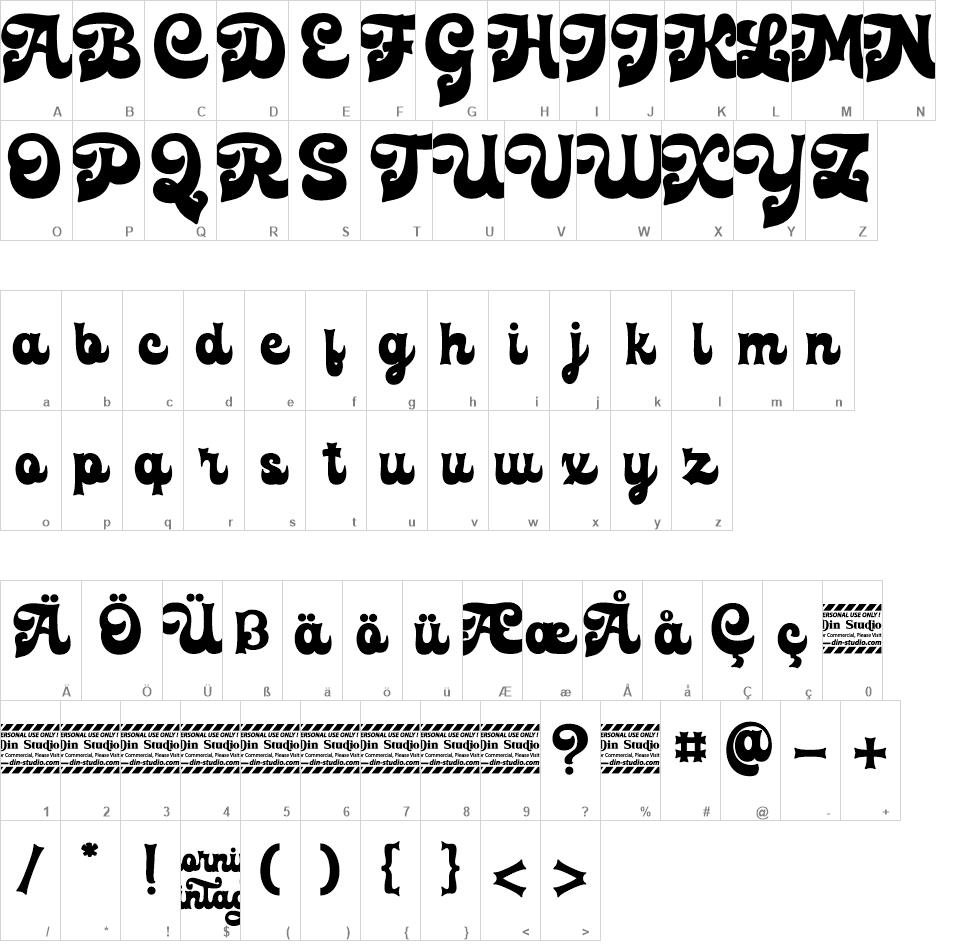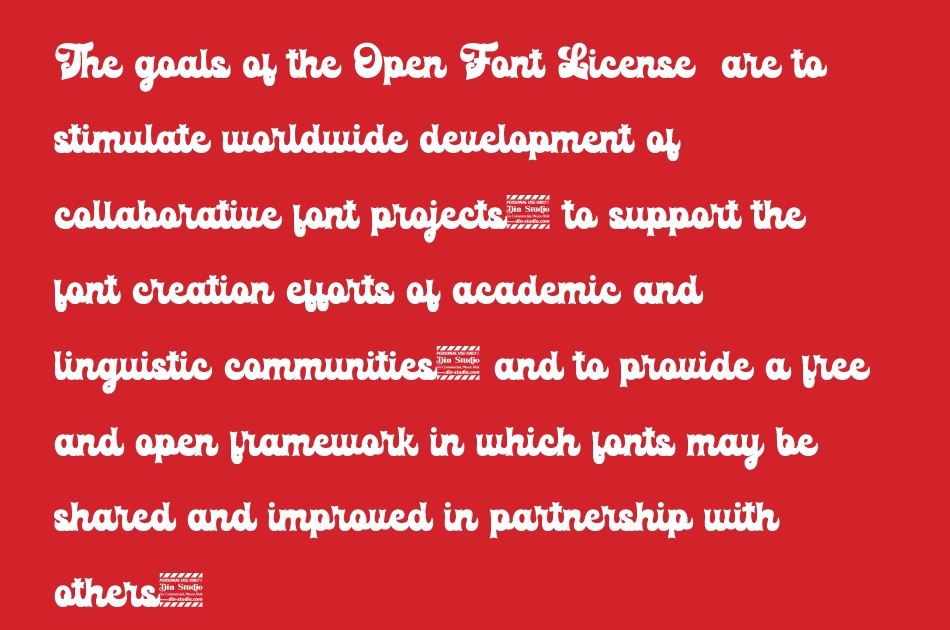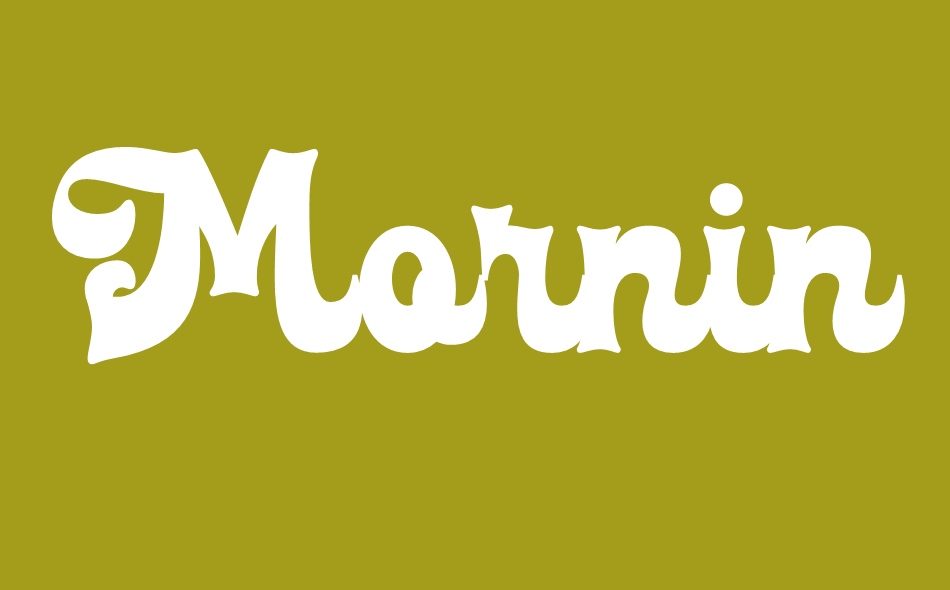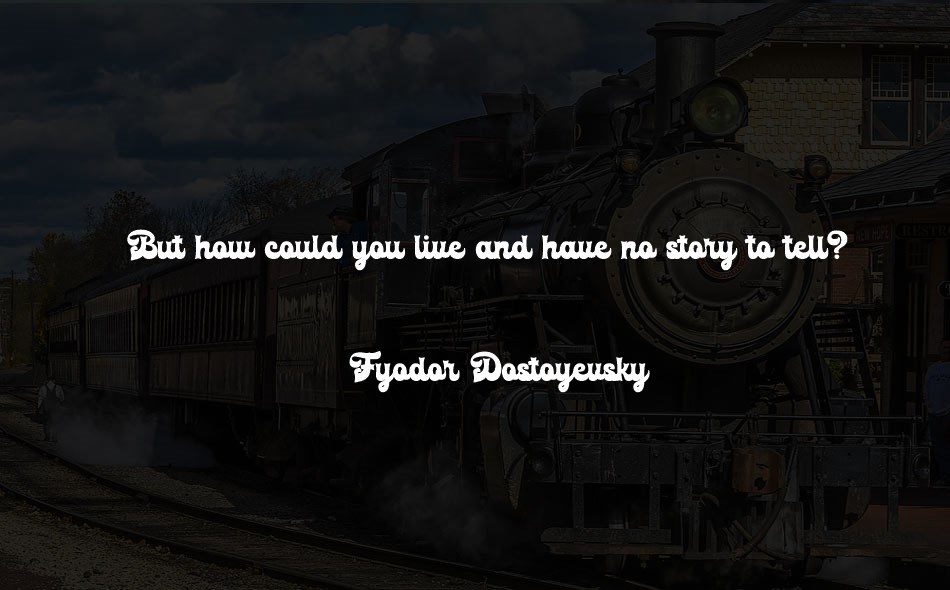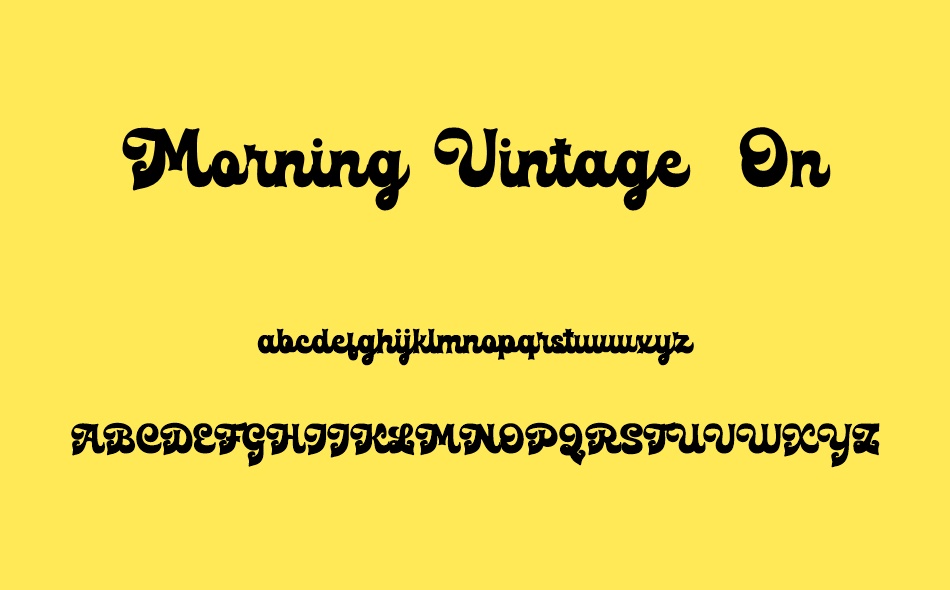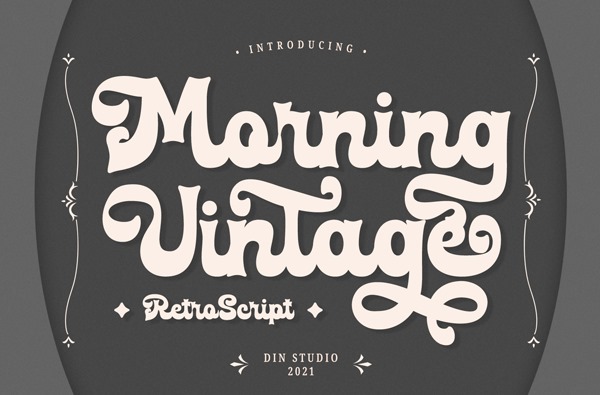
Morning Vintage font
Morning Vintage is a handcrafted font inspired by designs and illustrations from urban styles. An excellent choice to add the right amount of street and retro vibes.